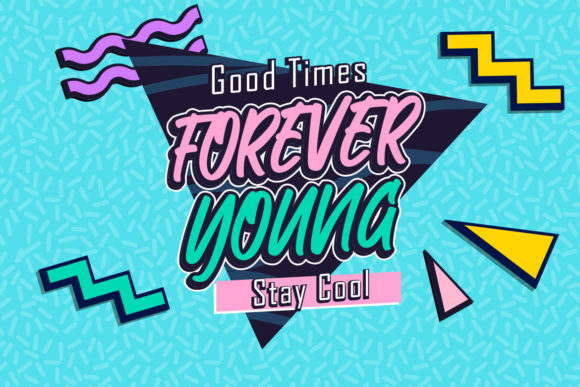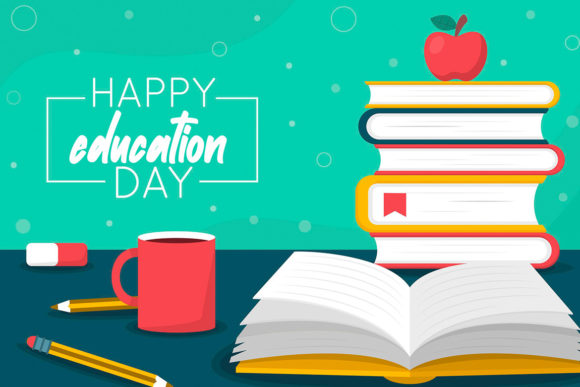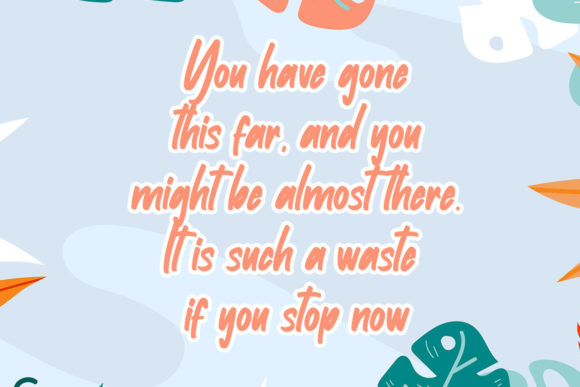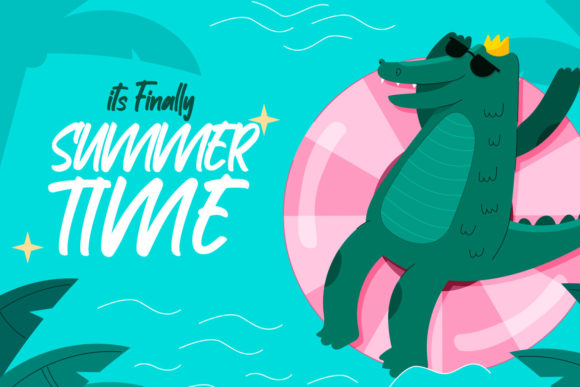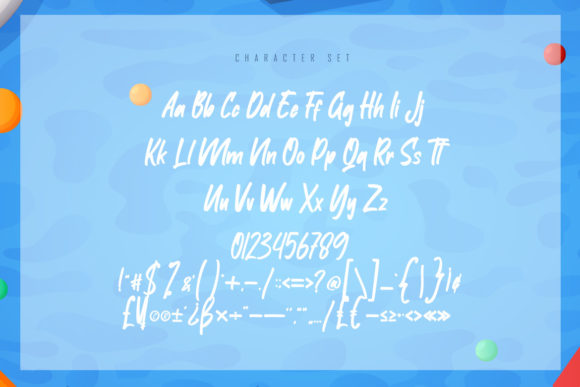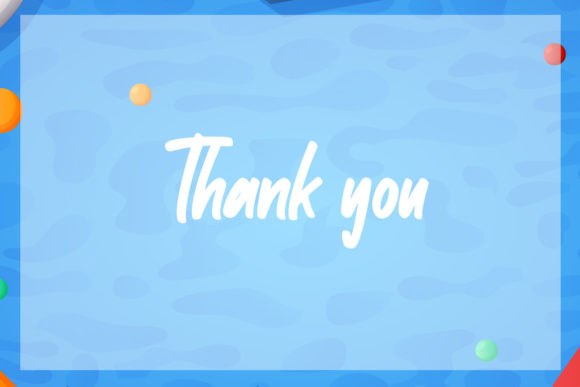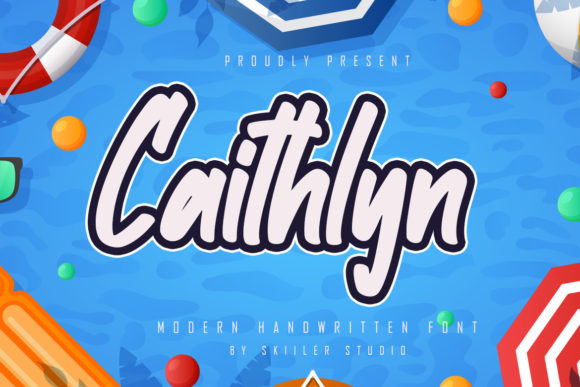
Introducing Caithlyn Font: The Playful Script Font to Elevate Your Designs
Are you tired of using the same old fonts in your designs? Look no further than Caithlyn Font, a lovely script font that is sure to add a touch of charm and playfulness to your creative projects. With its whimsical characters that seem to dance along the baseline, Caithlyn Font is the perfect addition to your font collection.
The Unique Characteristics of Caithlyn Font
Caithlyn Font is a script font that boasts charming, playful characters that are sure to capture the attention of your audience. Its unique features include:
- Whimsical letterforms: Each letter in Caithlyn Font has been carefully crafted to have a playful, dancing feel that adds a touch of personality to your designs.
- Varied letter spacing: The font features varied letter spacing to create a natural, handwritten feel that is both elegant and approachable.
- Extensive character set: Caithlyn Font includes an extensive character set, complete with uppercase and lowercase letters, numbers, and punctuation marks, making it perfect for a wide range of design applications.
Why Choose Caithlyn Font?
So why choose Caithlyn Font for your design projects? Here are just a few reasons:
- Adds a touch of personality: Caithlyn Font’s playful characters add a touch of personality to your designs, making them stand out from the crowd.
- Perfect for creative projects: Whether you’re working on a branding project, a craft, or a digital design, Caithlyn Font is the perfect choice to add a touch of whimsy and creativity.
- Easy to read: Despite its playful nature, Caithlyn Font is easy to read, making it perfect for use in body text, headings, and titles.
Design Applications for Caithlyn Font
Caithlyn Font is a versatile font that can be used in a wide range of design applications, including:
- Branding and logos: Add a touch of personality to your brand with Caithlyn Font, perfect for creating unique and memorable logos.
- Digital designs: Use Caithlyn Font in your digital designs, such as social media graphics, blog posts, and website headers.
- Crafts and DIY projects: Add a touch of whimsy to your craft and DIY projects, such as handmade cards, invitations, and scrapbooking.
Tips for Using Caithlyn Font
Here are a few tips for getting the most out of Caithlyn Font:
- Use it sparingly: While Caithlyn Font is perfect for adding a touch of personality to your designs, it’s best used sparingly to avoid overwhelming the viewer.
- Pair it with a sans-serif font: Pair Caithlyn Font with a sans-serif font to create a striking contrast and add visual interest to your designs.
- Experiment with colors and textures: Experiment with different colors and textures to add depth and visual interest to your designs featuring Caithlyn Font.
In conclusion, Caithlyn Font is a lovely script font that is sure to add a touch of charm and playfulness to your design projects. With its whimsical characters, varied letter spacing, and extensive character set, Caithlyn Font is the perfect choice for designers and crafters looking to add a touch of personality to their creations. So why not give Caithlyn Font a try and see how it can elevate your designs?